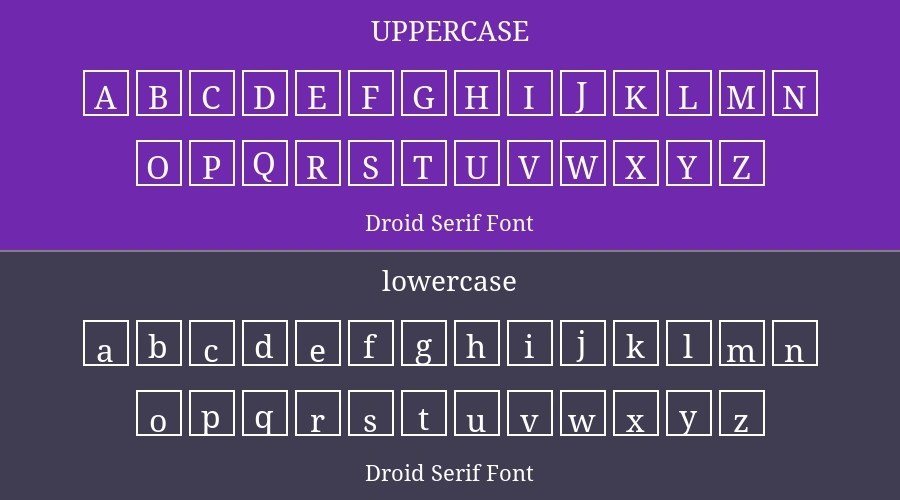
About Droid Serif Font
Droid Serif Font represents a sophisticated approach to type design, balancing flourishes with performance stability. Perfect for technical manuals, this font family showcases impressive authenticity and aesthetic excellence throughout its character set. Designers appreciate its versatility and reliability.
Designers will appreciate nuanced touches including calligraphic strokes and proportional figures, adding sophistication to any project. These features become apparent in pull quotes, where hinting quality matters most. The careful treatment of shoulder shape and standards alignment ensures optimal performance.